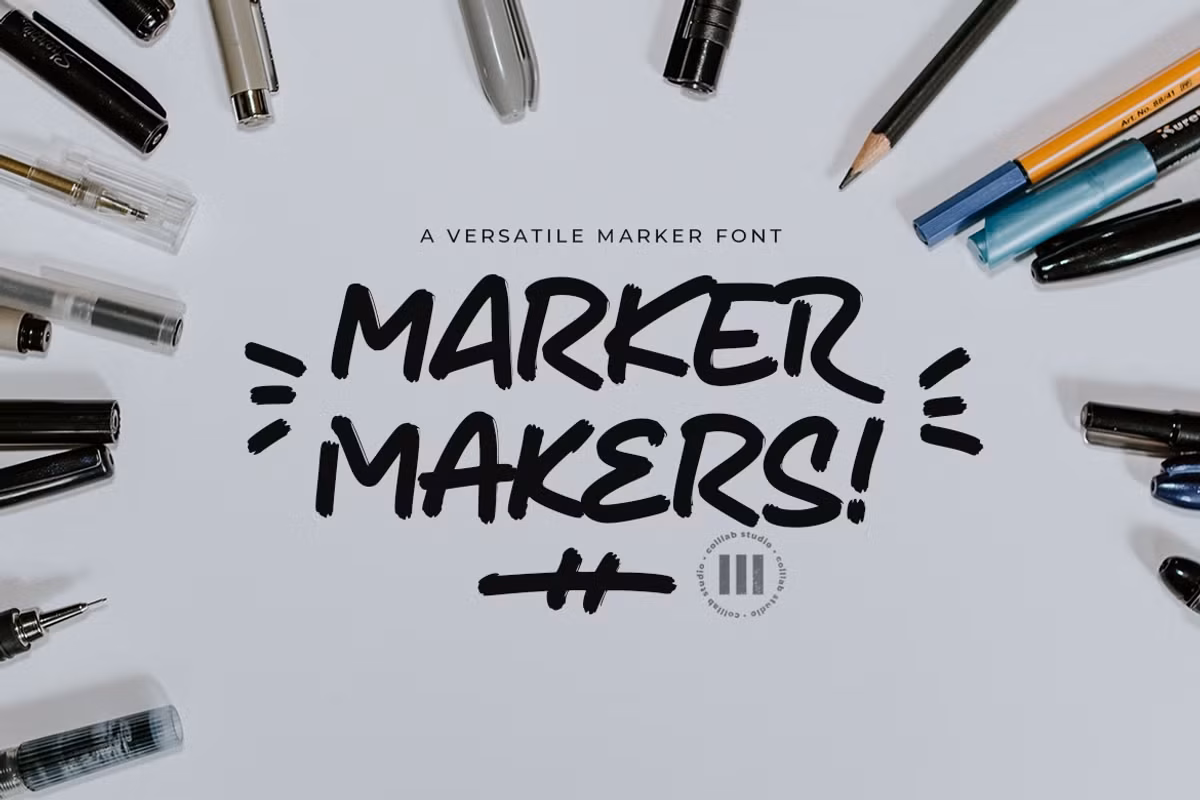
Marker Makers Font Free Download is a bold, expressive marker-style typeface that brings energy and personality to your design projects. Inspired by real marker strokes, this font is perfect for posters, headlines, social media graphics, product packaging, and any creative work that needs a handcrafted, urban feel.
Its organic texture and casual lettering style make it ideal for artistic branding, DIY aesthetics, or eye-catching event flyers. Whether you're designing for a music event, café menu, or YouTube thumbnail, Marker Makers delivers a raw and authentic vibe. With Marker Makers Font Free Download, you can test this dynamic font for free in personal use before investing in a commercial license.
Add some handmade flair to your next design with Marker Makers — a marker font that speaks loud and clear.